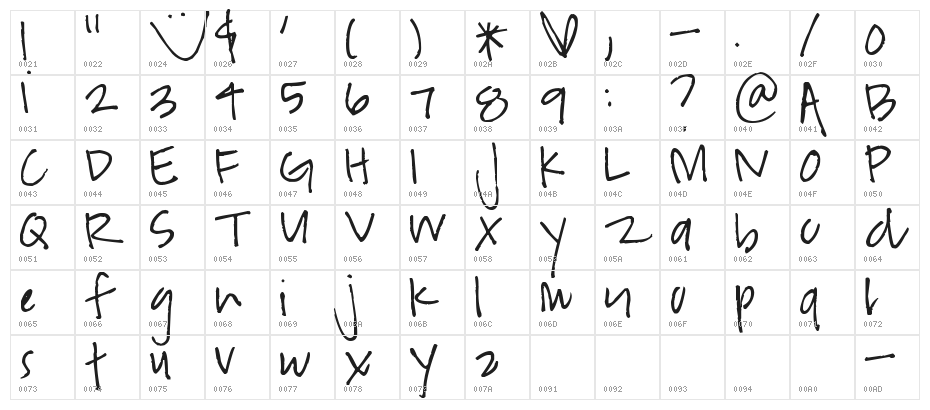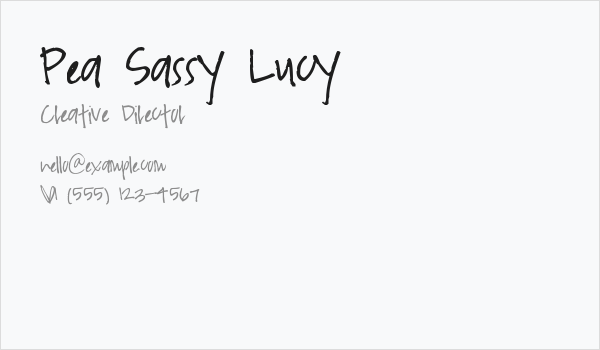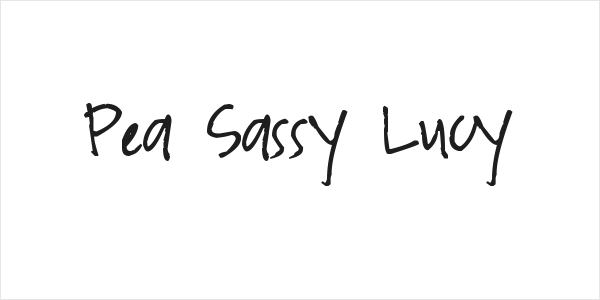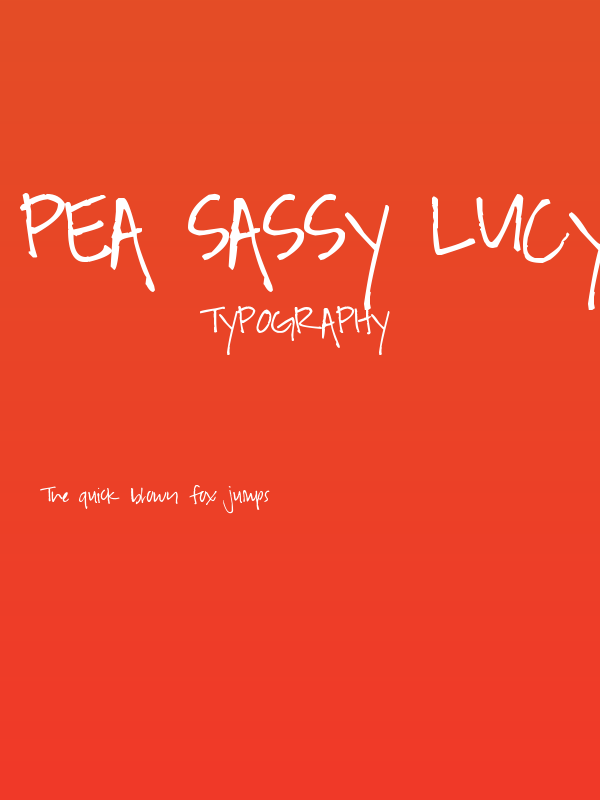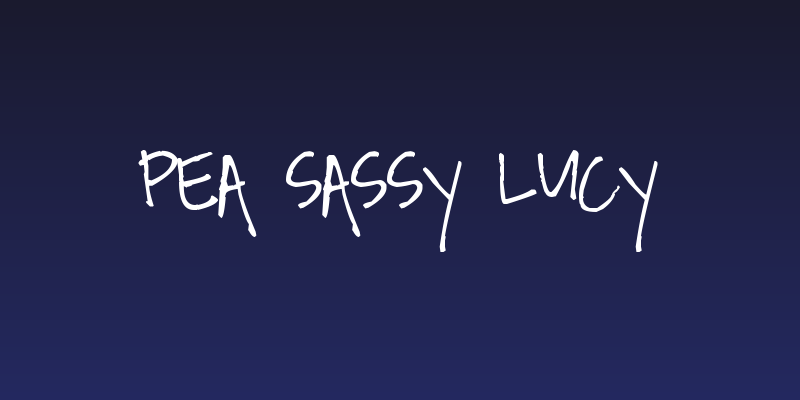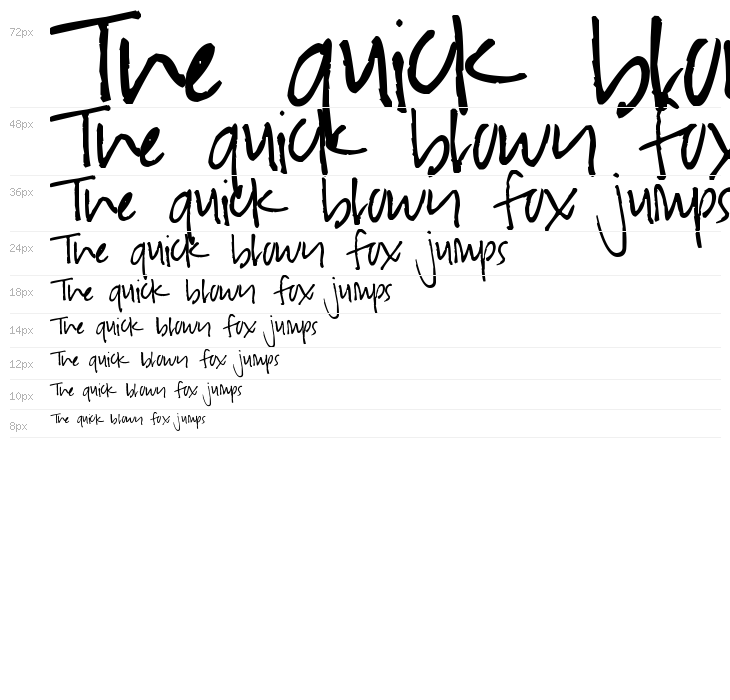
Pea Sassy Lucy Font
Pea Sassy Lucy Description
This font exudes a playful and casual handwritten style, characterized by its loose and flowing strokes. The letters have an informal, personal touch, reminiscent of a quick note jotted down with a marker. The uppercase and lowercase letters maintain a consistent style, with slightly exaggerated curves and varying stroke widths that add to its charm. The numbers and special characters follow the same playful aesthetic, making the font versatile for creative projects. Its overall appearance is lively and energetic, perfect for adding a personal touch to designs.
| Use Case | Logos, Headlines, Personal notes |
| Proposed Projects | Ideal for greeting cards, personal notes, informal invitations, and playful branding projects. |